Chunky Font
Chunky is a ravishing and cursive script font. It has a graceful touch and it will most certainly have an unforgettable impact on your creative ideas. Chunky is PUA encoded which means you can access all of the glyphs and swashes with ease!
CM - Blue Gold Sans Serif Font + Extras 4180350
Blue Gold is all caps, clean font with tons of alternative glyphs, ornaments, nature elements, photoshop styles, watercolours, ink marks and multilingual support. It's a very versatile font that works great in large and small sizes. Blue Gold is perfect for branding projects, home-ware designs, product packaging, magazine headers - or simply as a stylish text overlay to any background image.
Whetiya Font
Whetiya is a beautiful handwritten font with a romantic feel. Use it to create gorgeous wedding invitations, beautiful stationary art, eye-catching social media posts and much more! This font is PUA encoded which means you can access all of the glyphs and swashes with ease!
Avins Bake Font
Avins Bake is a beautiful and modern serif font. Fall in love with its incredibly distinct and timeless style and use it to create spectacular designs! This font is PUA encoded which means you can access all of the glyphs and swashes with ease!
Housefront Font
Housefront is a classic script font. Use this font to add that special handwritten touch to any design idea you can think of! This font is PUA encoded which means you can access all of the glyphs and swashes with ease!
Hopkins Park Font
Hopkins Park is an authentic and cute duo font (sans serif and script). It epitomizes joy and versatility and it will become your best choice for a wide range of designs.
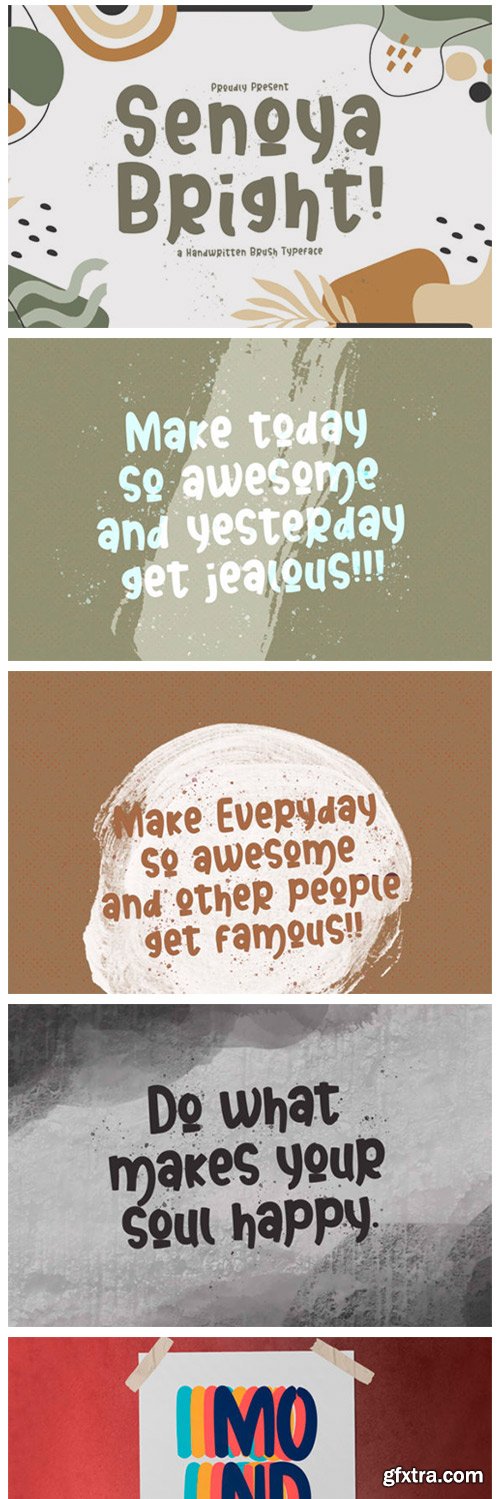
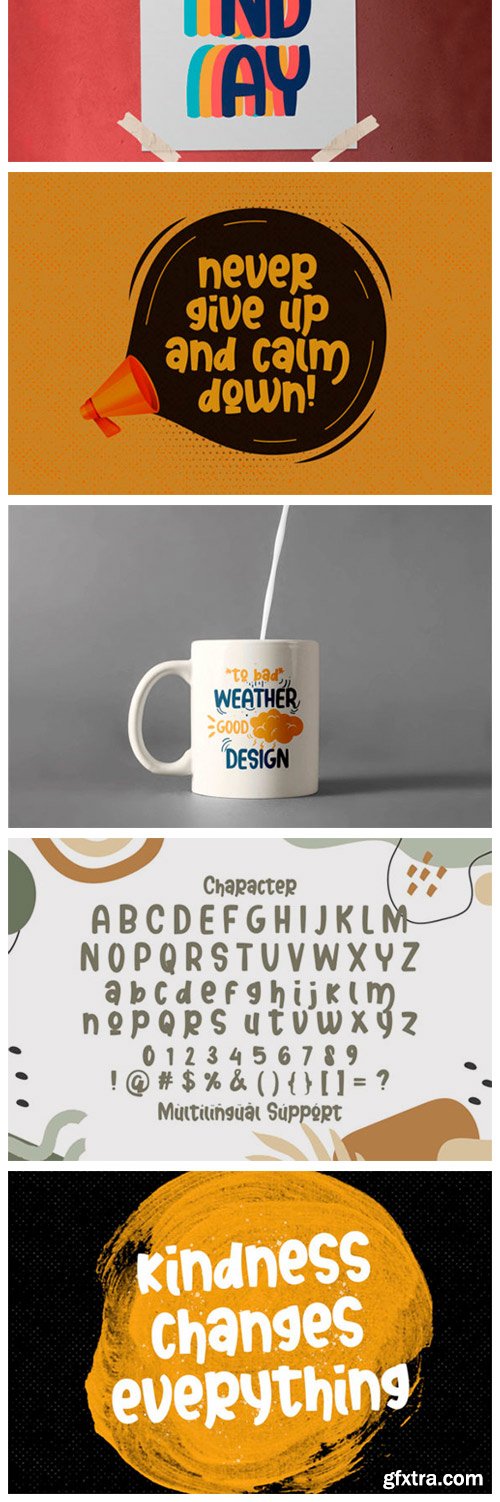
Senoya Bright Font
Senoya Bright is a bold and fresh display font. Get creative with its childlike playfulness, and use it to brighten up any kids and school project!
Sheylore Font
Sheylore is a unique and flowing handwritten font. Fall in love with its incredibly versatile style and use it to create spectacular designs!
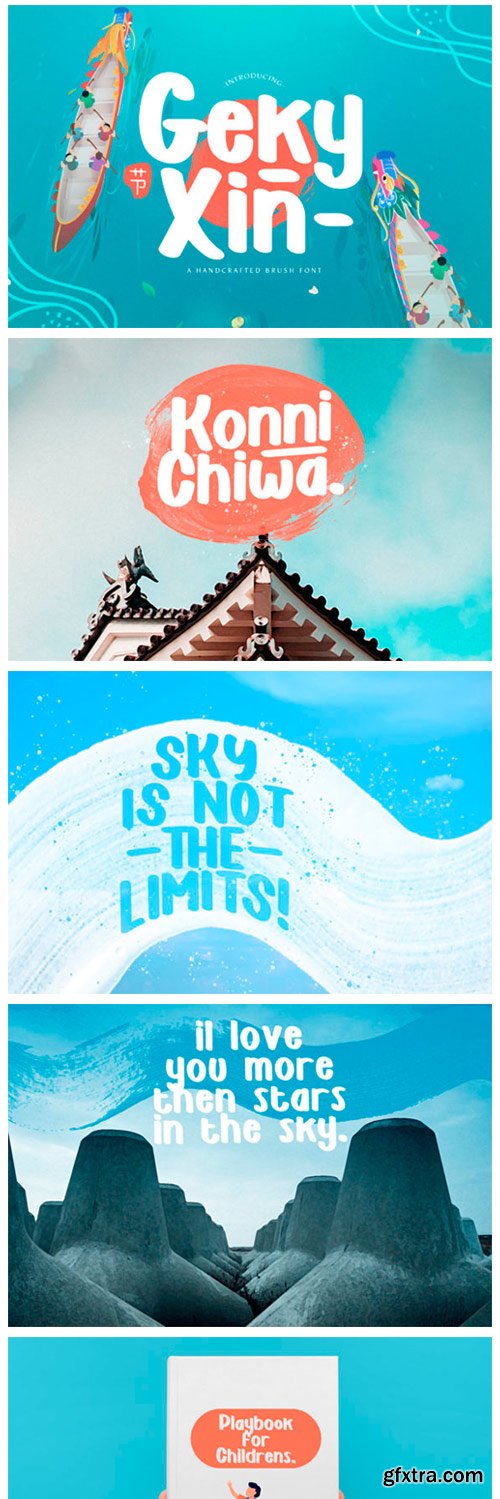
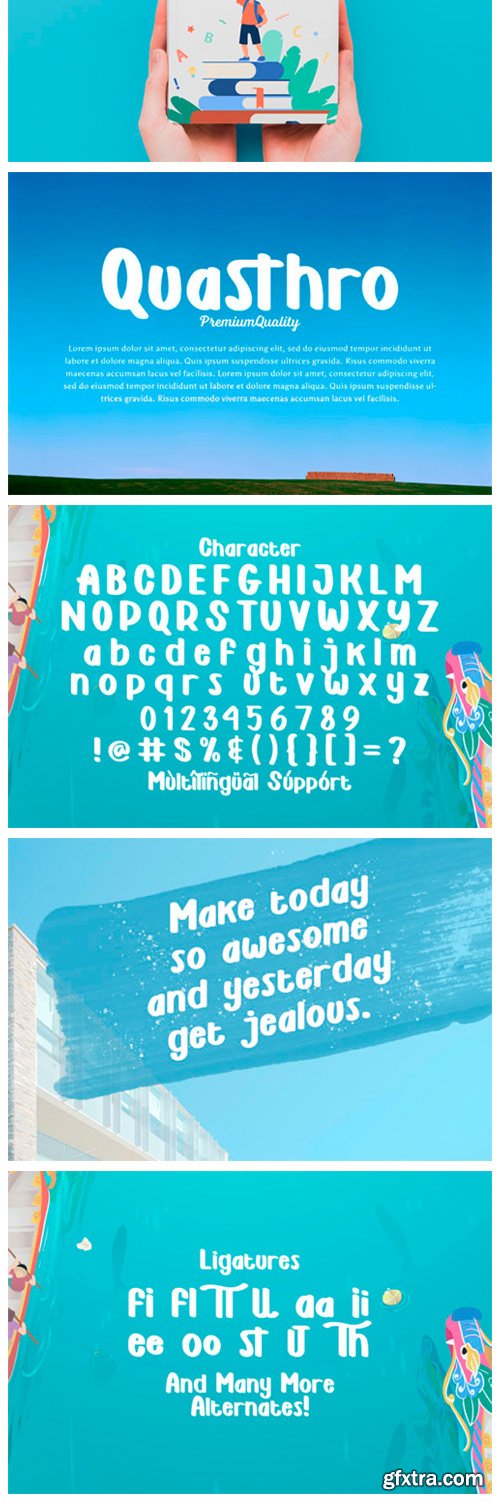
Geky Xin Font
Geky Xin is a bold and simple handwritten font. Use it to make your ideas even more realistic and create spectacular designs! This font is PUA encoded which means you can access all of the glyphs and swashes with ease!
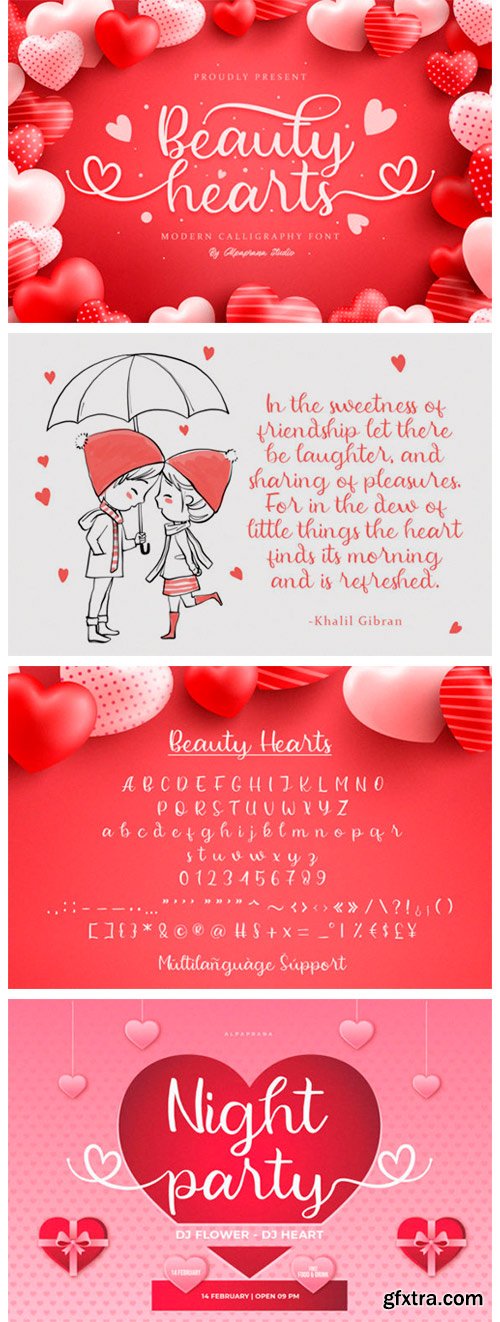
Beauty Hearts Font
Beauty Hearts is a stunning and cute handwritten font with an authentic feel. It will be perfectly used for branding, logo Designs, clothing, posters and much more. This font is PUA encoded which means you can access all of the glyphs and swashes with ease!
CM - Wildflower | Handwritten Font 5332116
Introducing my new handwriting font - Wildflower. It's perfect for creating quotes, logos, or just adding a handmade touch to any project.
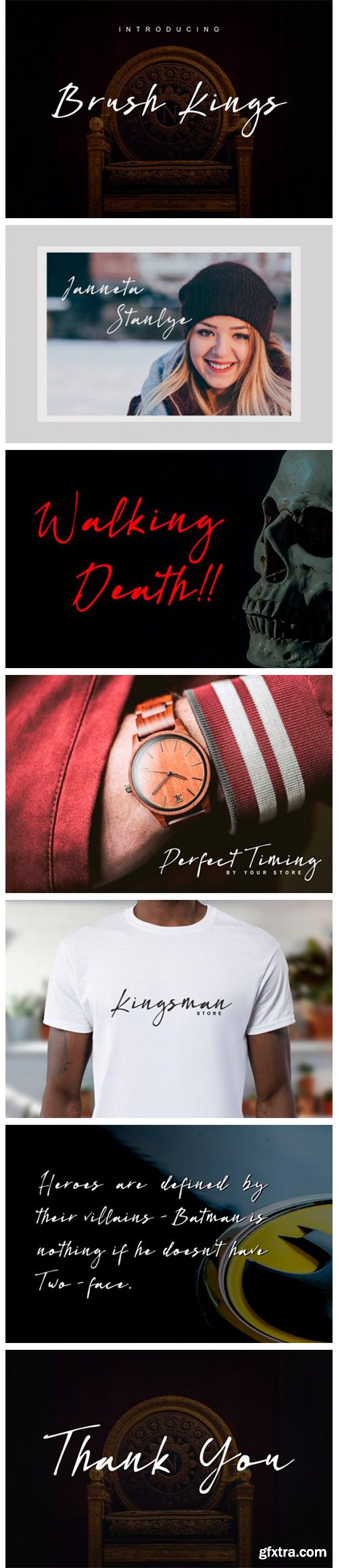
Brush Kings Font
Brush Kings is natural script font. It’s perfect for logos, quotes, posters, playful lettering, clothing and any other design which needs an unique touch.
CM - Le Major | Display Serif Font 4940722
Le Major is my new elegant serif font that will bring in your projects a touch of luxury and style. It's perfect match for logotypes, branding, wedding monograms and invitations, blog headlines and much more. Flip through all the previews and get inspired like I was while creating this font.
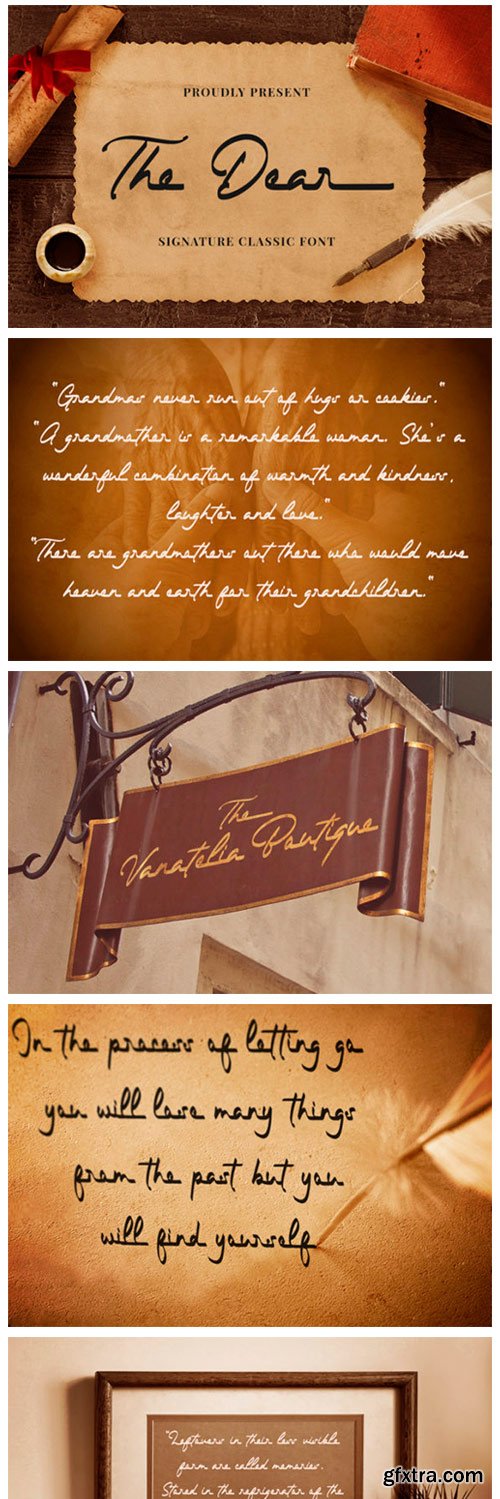
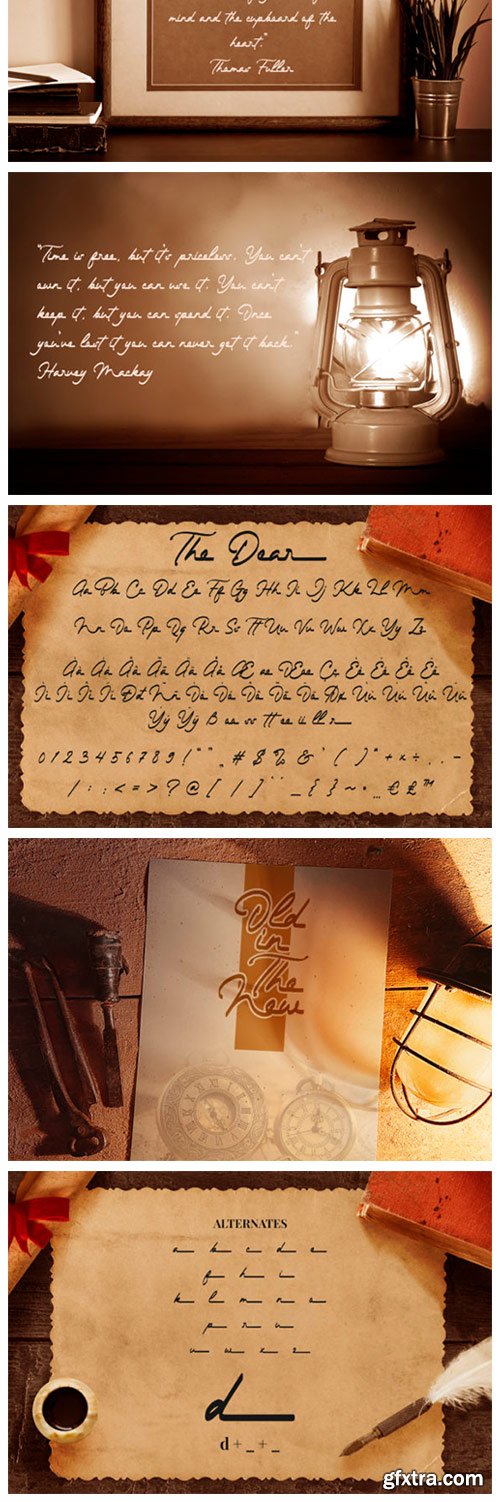
The Dear Font
The Dear is a signature, classic script font. Paint brushed and stylish, this font will complement a wide range of designs, either business related or more personal.
CM - Olivie Font Duo // Script & Sans 4865955
Olivie Font Duo is the third font duo created by me and honestly I totally love each my duet. Today I present you the new font pair that already matched up and ready to be used together for many of your projects.
Cannu Font
Cannu is a modern serif font. It is the perfect choice for people looking for clean, modern, minimalist, elegant, beautiful design styles. It is suitable for almost any graphic design such as logos, branding materials, business cards, gift cards, t-shirts, covers, thumbnails, prints, posters, photography, quotes, and much more. This font is PUA encoded which means you can access all of the glyphs and swashes with ease!
Kuchek Font
Kuchek is a delicate serif font. Fall in love with its completely different and timeless style and use it to create spectacular designs! This font is PUA encoded which means you can access all of the glyphs and swashes with ease!
Rainy Love Font
Rainy Love is a beautiful handwritten font with a romantic theme. Fall in love with its incredibly versatile style and use it to create gorgeous wedding invitations, beautiful stationary art, eye-catching social media posts, and much more! This font is PUA encoded which means you can access all of the glyphs and swashes with ease!
Baby Gentha Font
Baby Gentha is a beautiful handwritten font. Use it to make your ideas even more realistic and create spectacular designs! This font is PUA encoded which means you can access all of the glyphs and swashes with ease!
Laekar Font
Laekar is a unique and interesting display font. A little bit quirky, this font is a great choice for a wide variety of contexts!